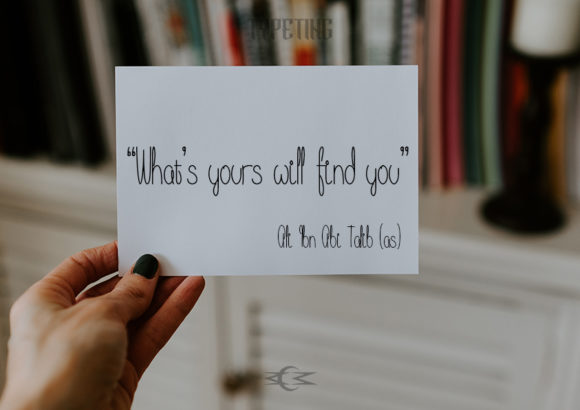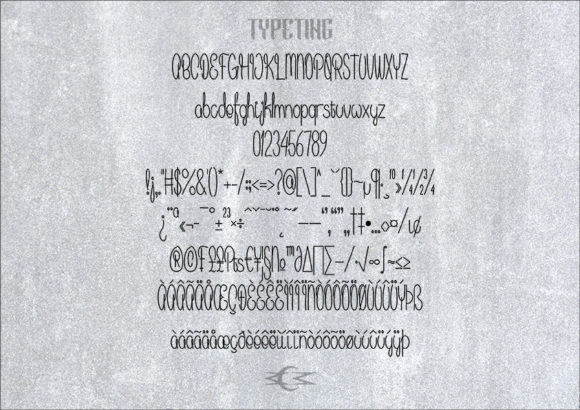
Binangkit Font
About Binangkit Font
Binangkit is a simple, cute and fun handwritten font with a lot of personal charm. Get inspired by its whimsical feel!